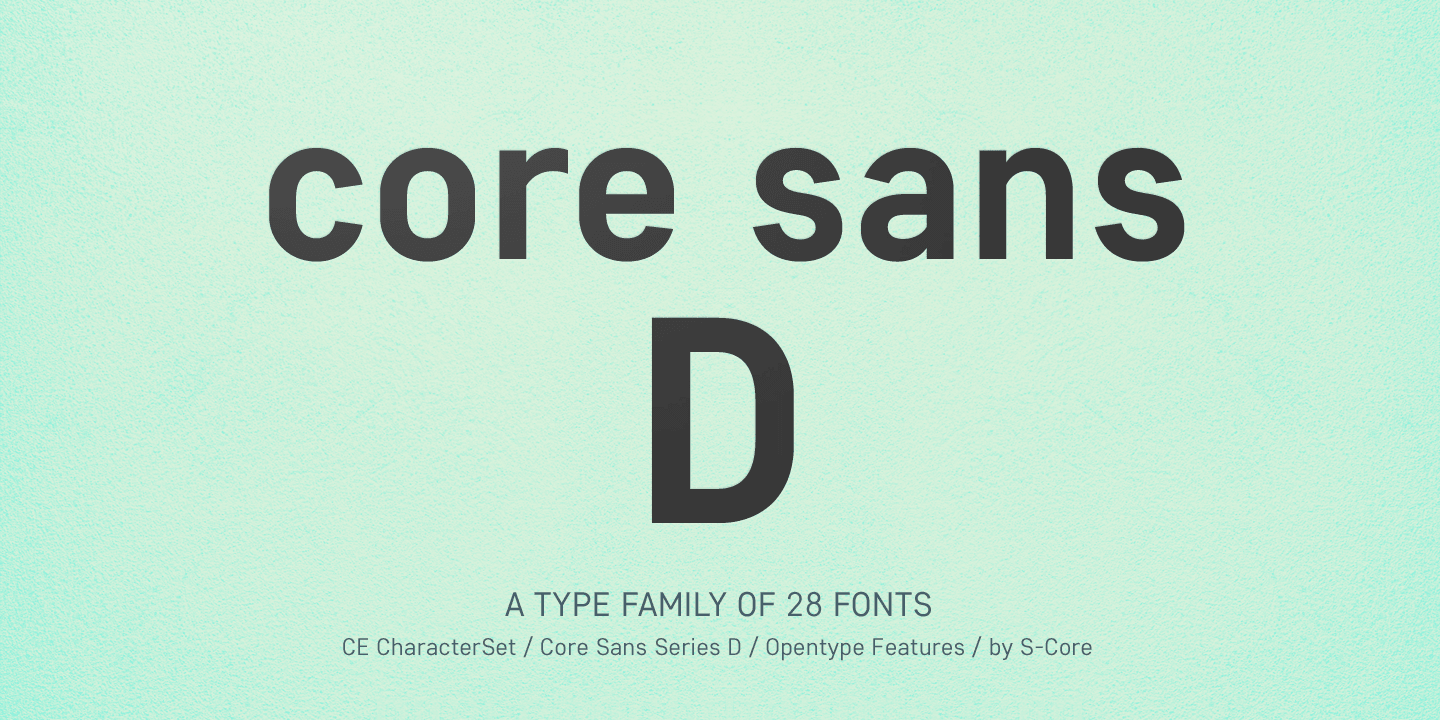
Core Sans Font
Core Sans Font - Core sans's latin alphabet has good legibility and is designed simply. Core sans's latin alphabet has good legibility and is designed simply.